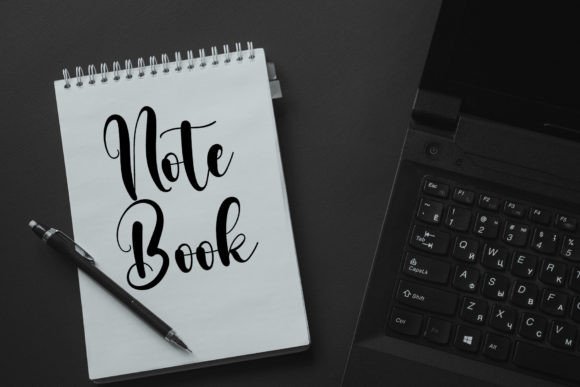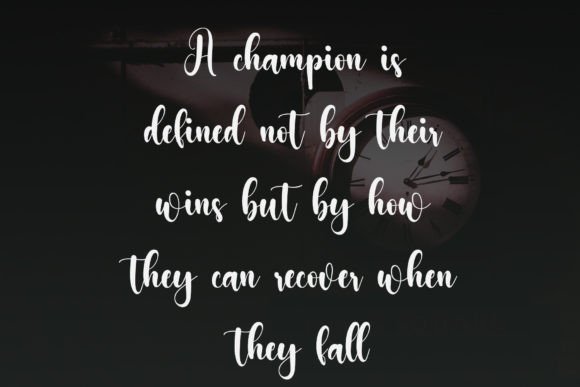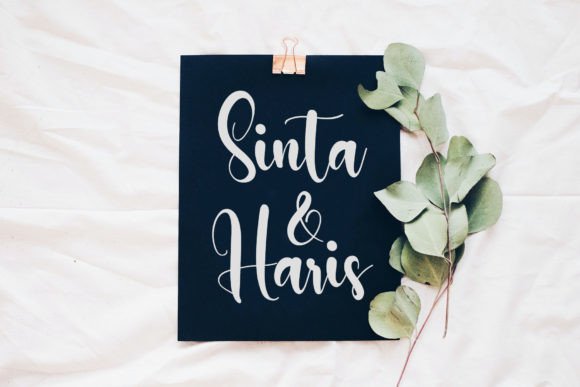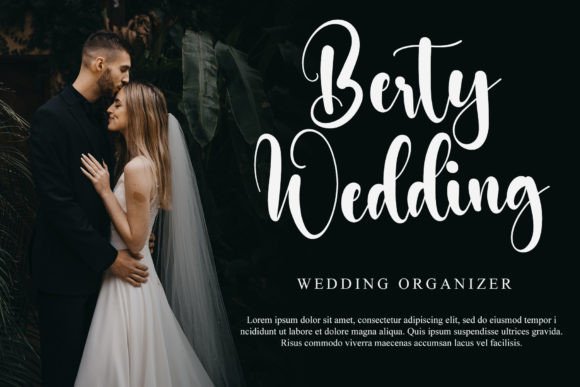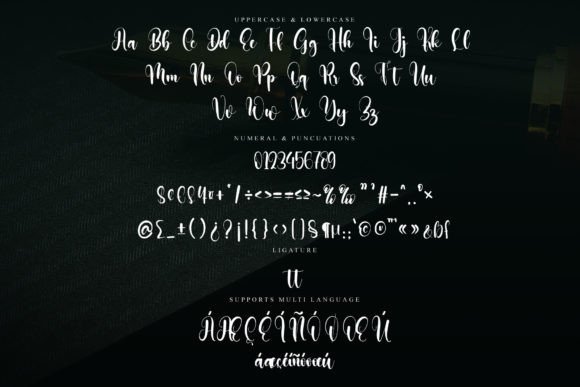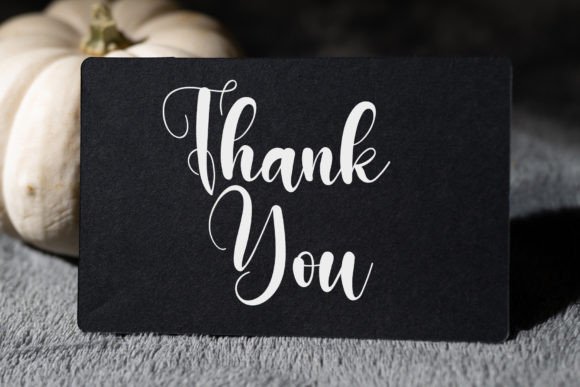
Introduction to Aliska Font
Aliska is a sweet and cursive handwritten font.
This gentle font will look gorgeous on a variety of design ideas It will add a joyful and romantic touch to each of your projects.
Key Features of Aliska Font
Why Choose Aliska Font?